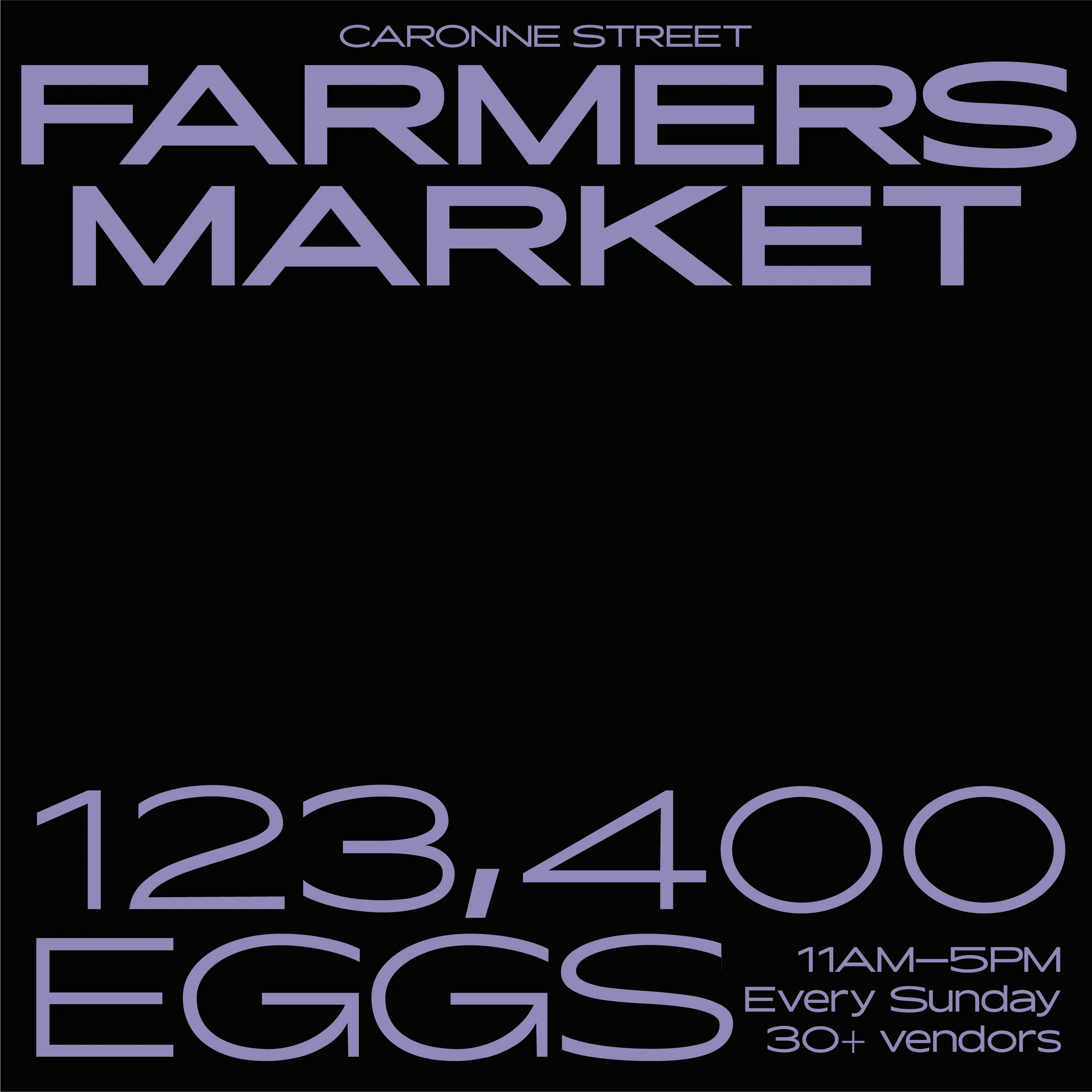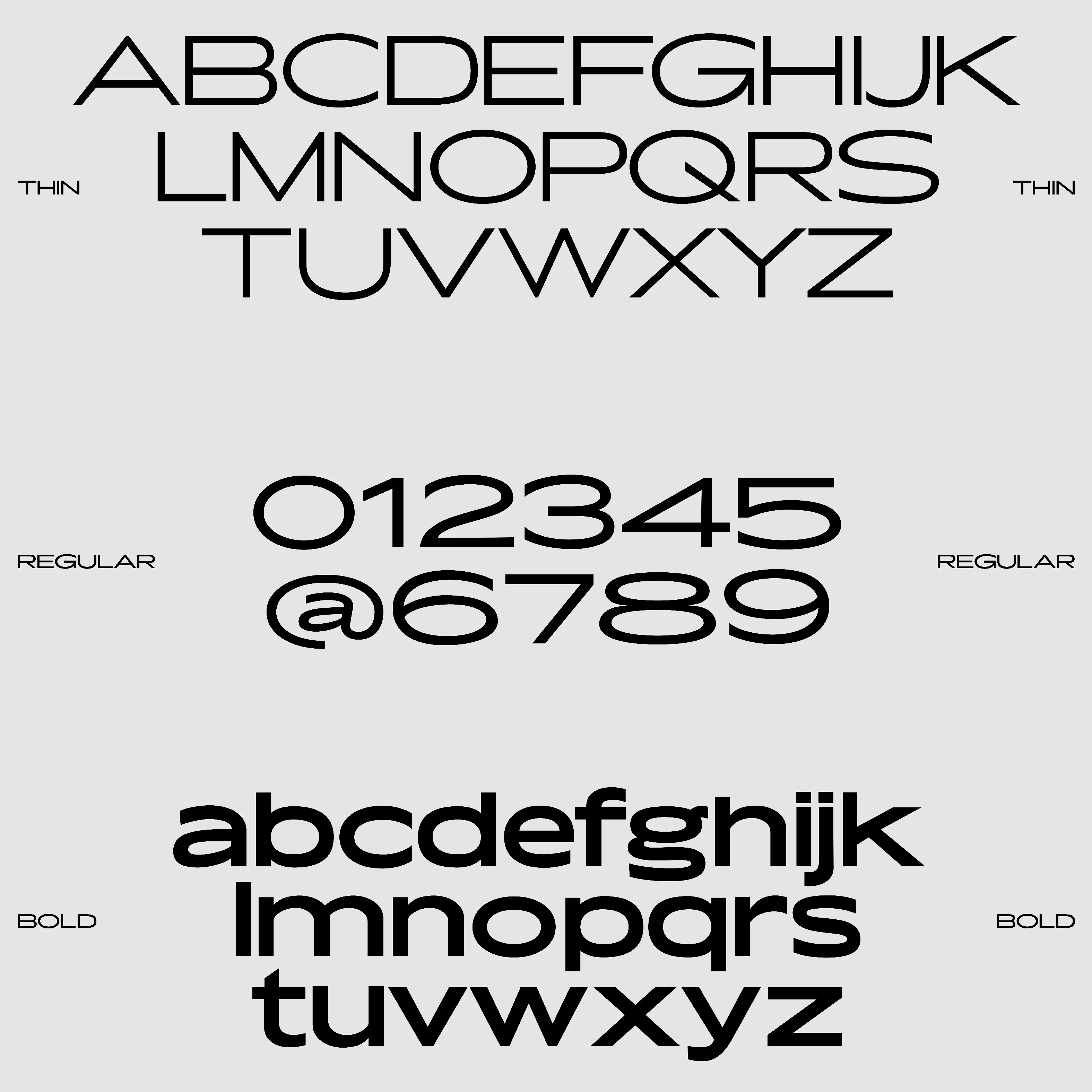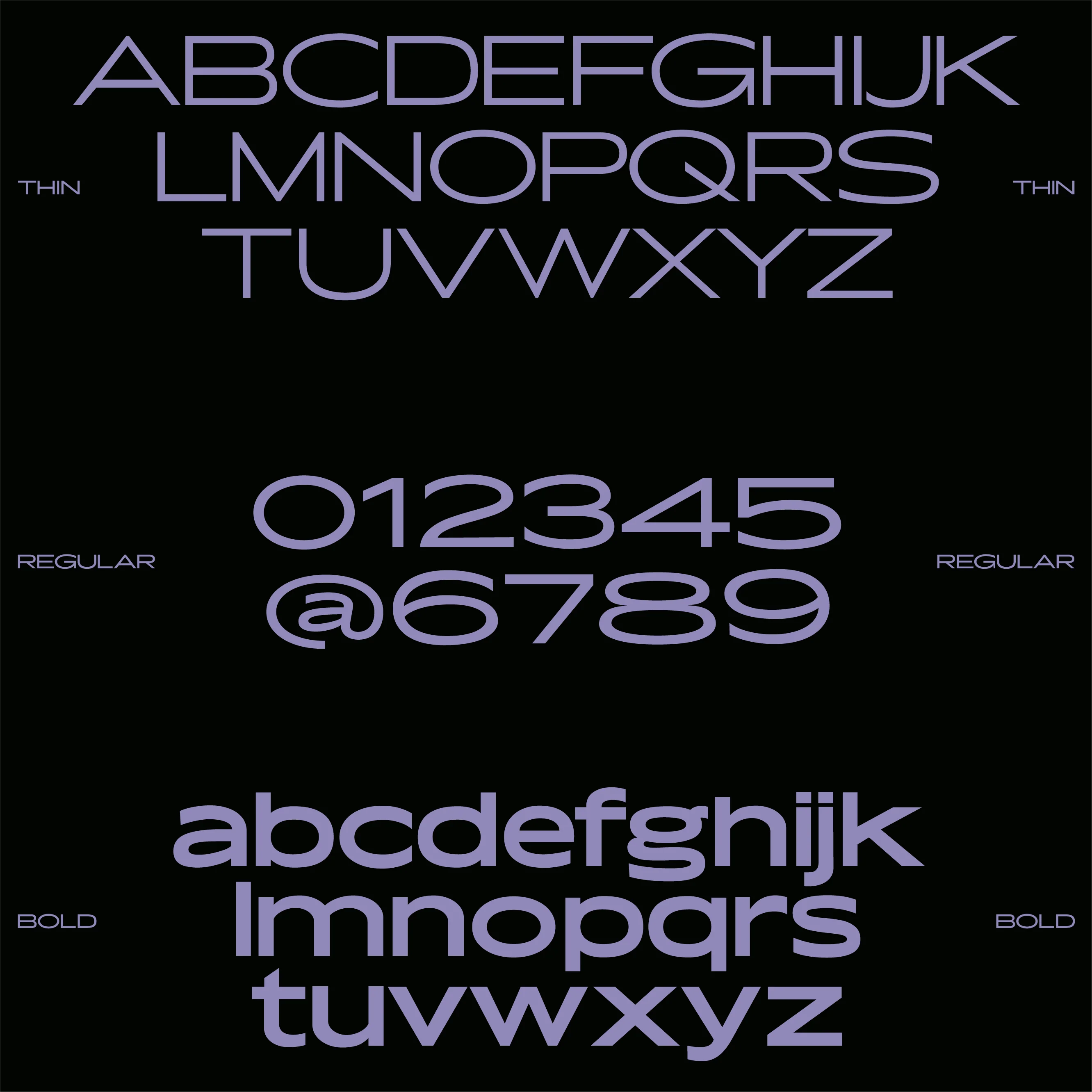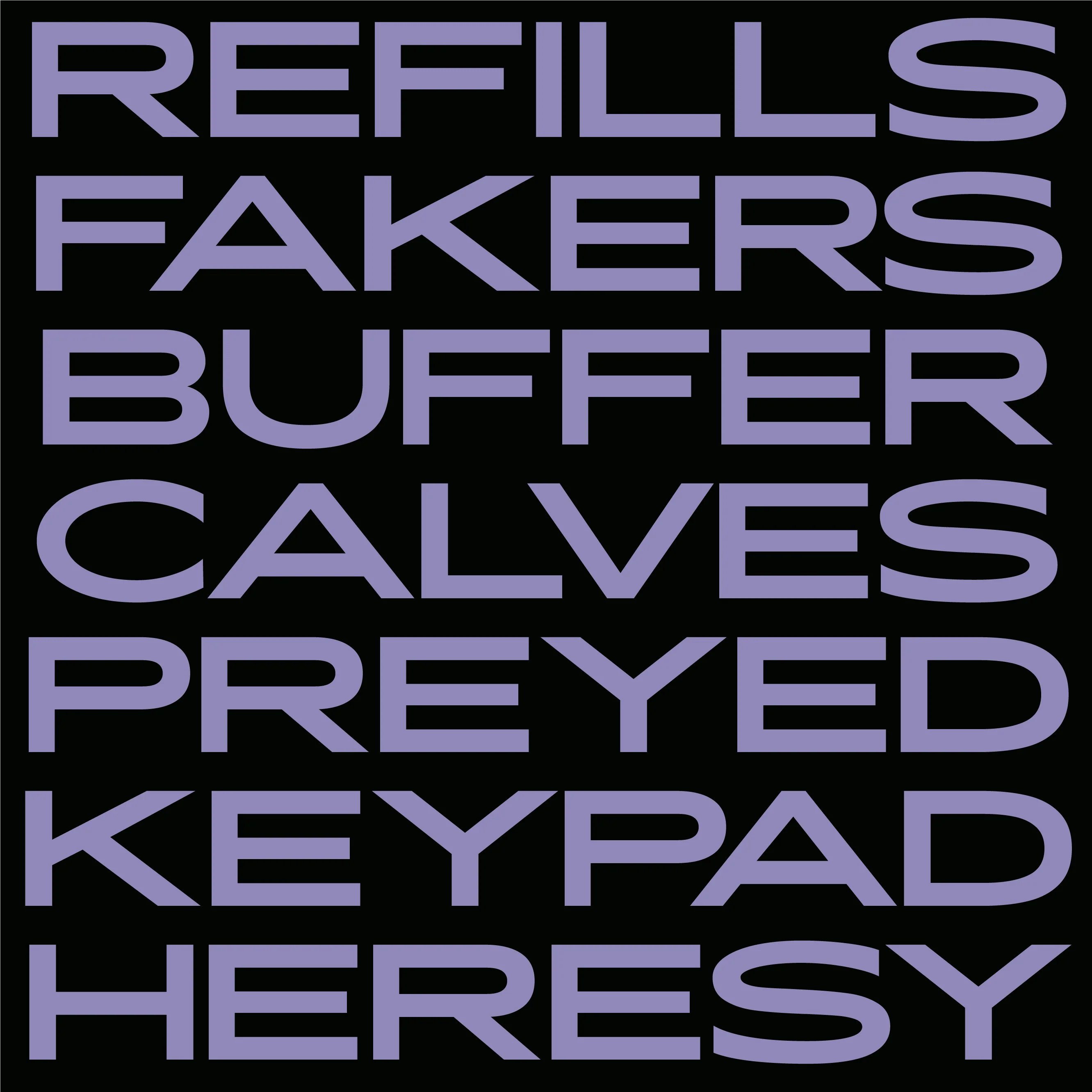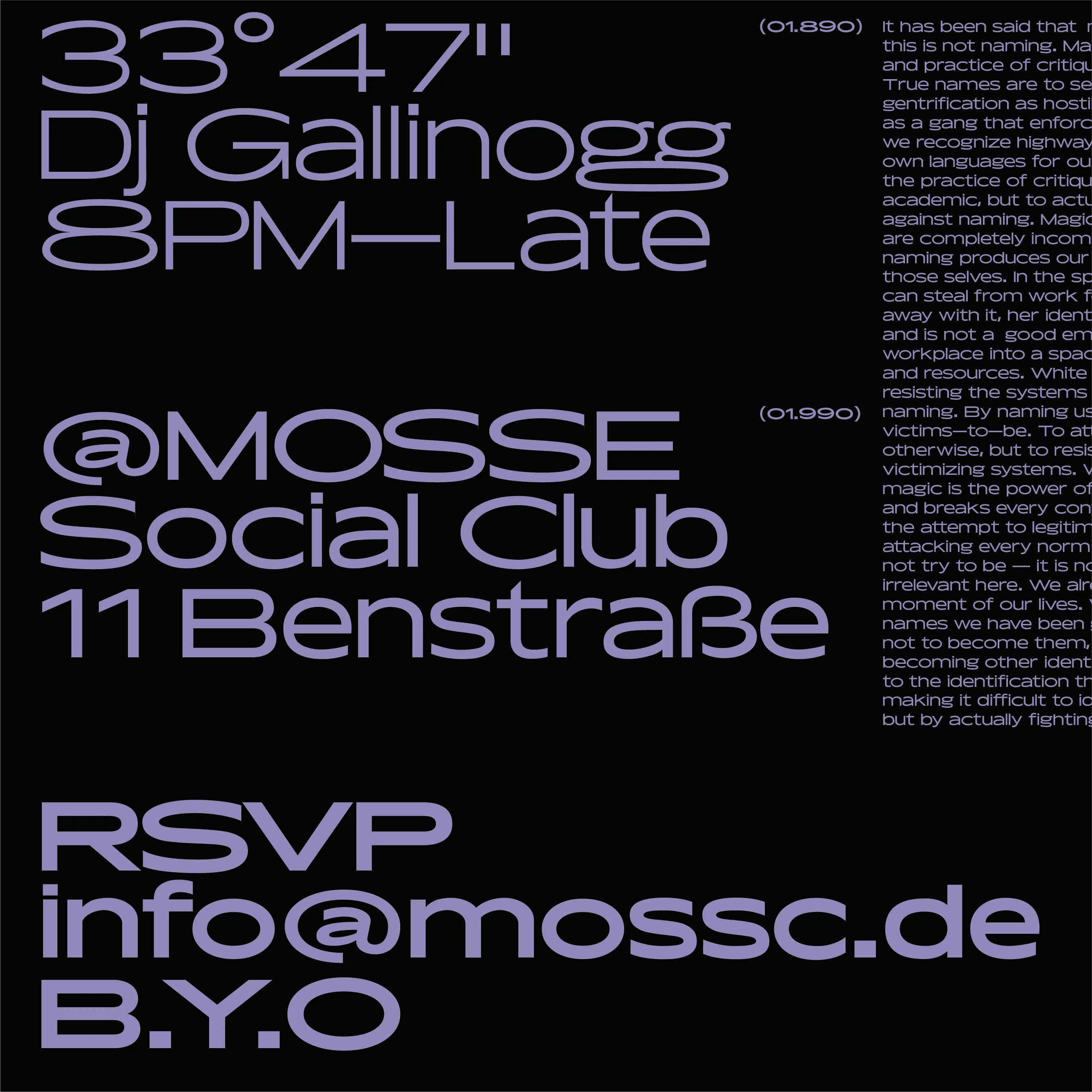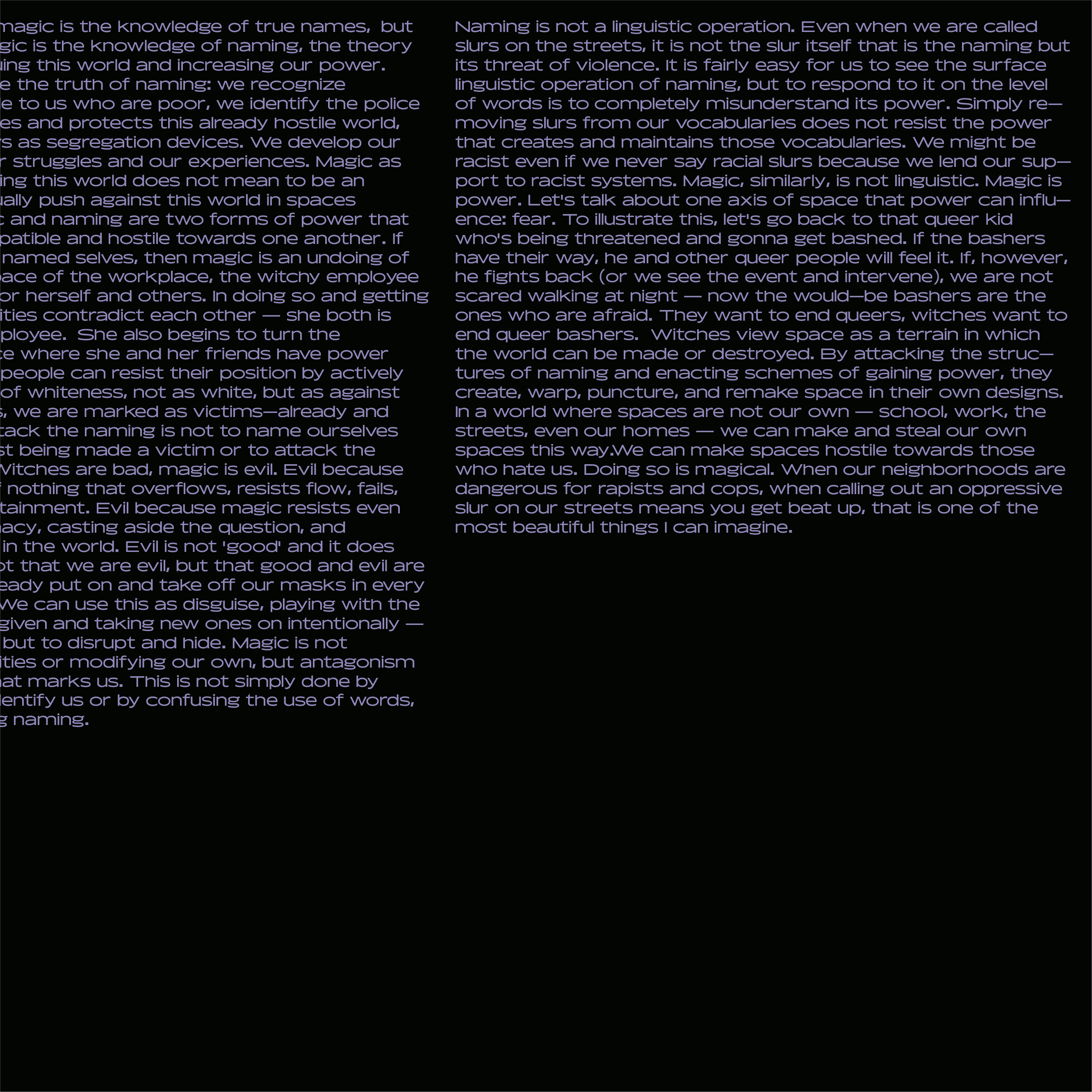
ALT Rigatoni
ALT Rigatoni is a wide, extended Grotesk typeface designed to create a brutalist look in all caps, met with a quirky and mellow feel in the lowercase.
Designed initially for posters and web pages, Rigatoni offers versatility across various applications. Its robust characters strike a balance with a set of slender alternate symbols and punctuation marks, enhancing its flexibility. The spacious design imbues a welcoming and approachable demeanour.
FEATURES
- 468 Glyphs
- 94% Latin Plus
- Stylistic alternates
- Standard ligatures, discretionary ligatures
- Fractions, symbols, arrows, punctuations & other symbols